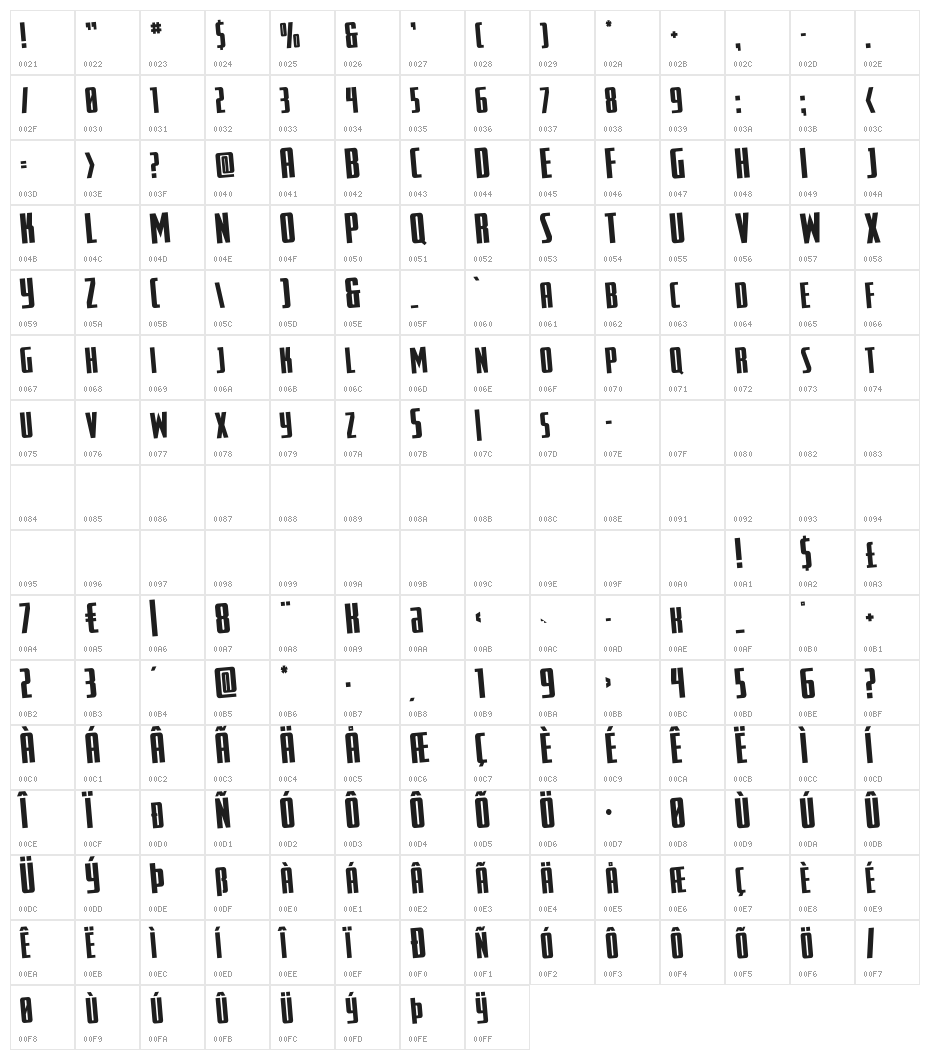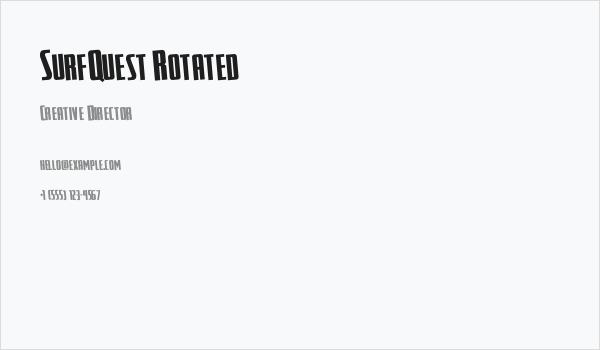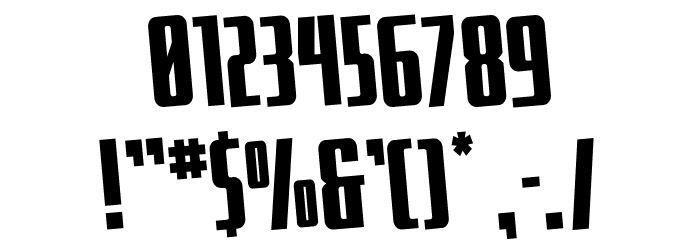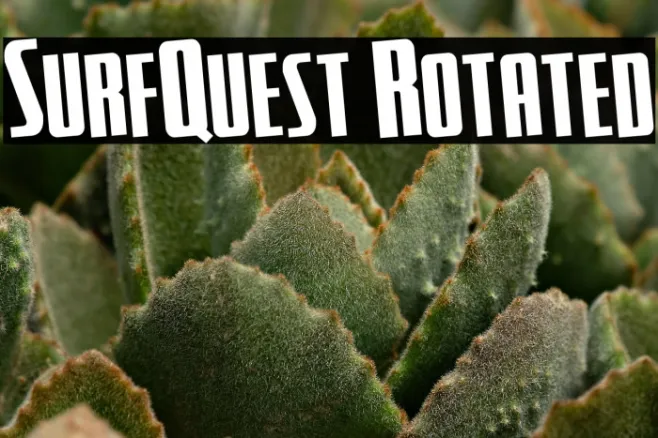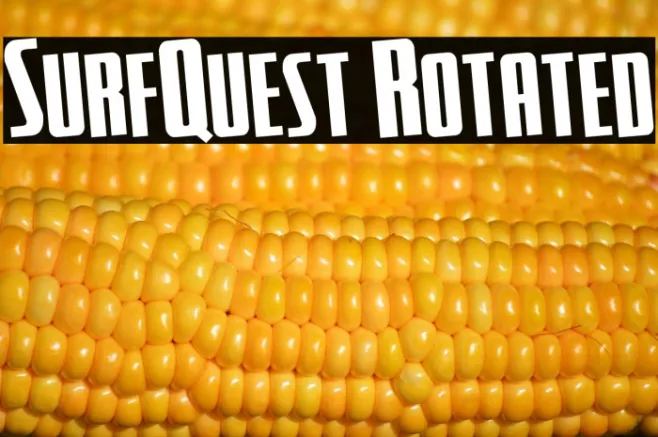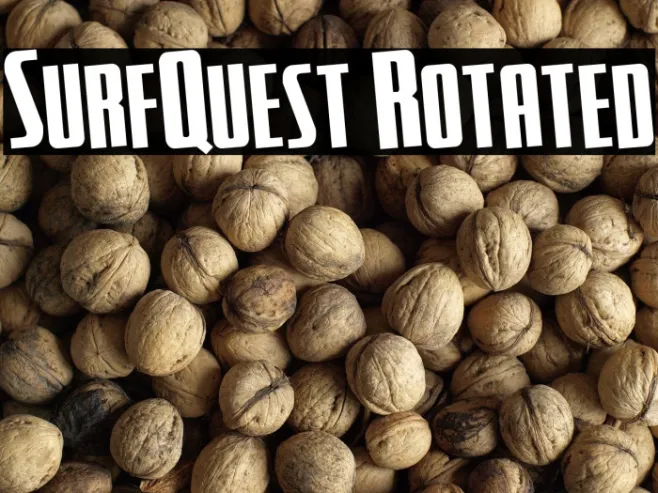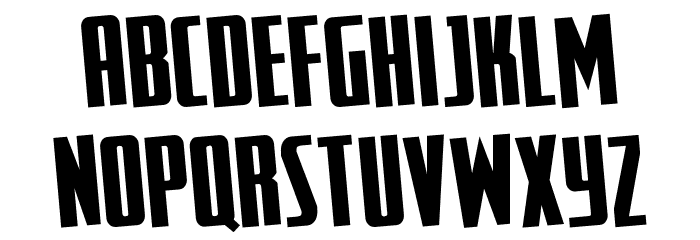
SurfQuest Rotated Font
SurfQuest Rotated Description
This font features bold, angular characters with a distinct, dynamic slant, giving it a sense of movement and energy. The uppercase letters are tall and narrow, with sharp edges and a slightly condensed appearance. The numbers and special characters maintain the same boldness and angularity, ensuring consistency across all glyphs. The overall design is modern and impactful, making it suitable for attention-grabbing headlines or branding materials. The font's unique style is both contemporary and slightly retro, reminiscent of vintage surf culture aesthetics.
| Proposed Projects | Perfect for surf-themed branding, posters, and dynamic headlines. |